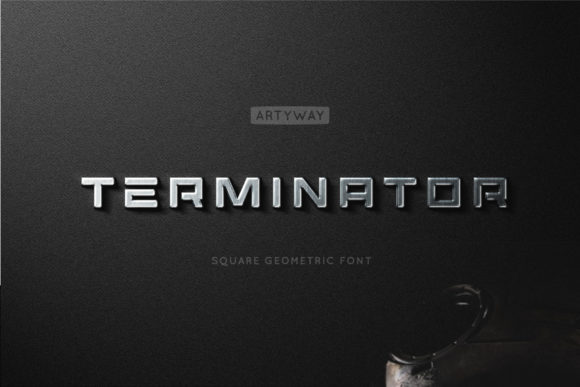
Introducing the Terminator Font: Unveil the Power of Boldness and Originality in Your Interior Design Projects
Unleash the power of bold and distinctive typography with the Terminator Font, a captivating display font designed to transform your interior design projects into extraordinary expressions of creativity. This font's thick, audacious letterforms demand attention, making it the perfect choice for creating unforgettable logos, captivating posters, striking social media graphics, and any design element demanding an unforgettable impact.
Beyond its visual prowess, Terminator Font offers a world of possibilities for interior designers seeking to craft spaces that exude personality and character. Use it to create stunning typography for wall art, murals, cushions, and other home décor elements that reflect your unique style and vision.
The Terminator Font is not just a font; it's an artistic tool that empowers you to elevate your interior design projects to new heights of creativity and originality. Its bold, assertive presence commands attention, making it the perfect choice for creating focal points that draw the eye and leave a lasting impression.
And the best part? The Terminator Font is incredibly versatile, effortlessly adapting to a wide range of design styles. Whether you're working on a classic, minimalist space or a bold, eclectic interior, this font will seamlessly blend with your vision, adding a touch of sophistication and individuality.
As you explore the potential of Terminator Font, you'll discover endless opportunities to express your creativity and leave a lasting impression on your clients. Embark on this typographic journey and witness the extraordinary transformation that awaits your interior design projects.